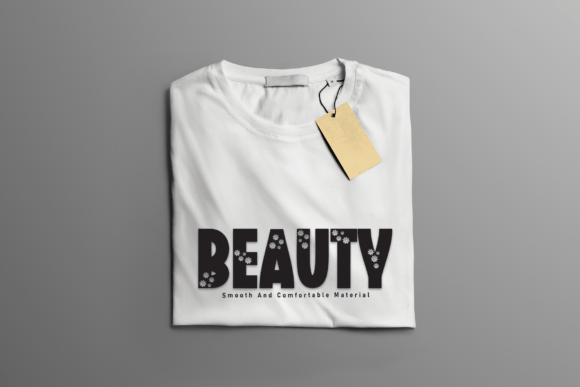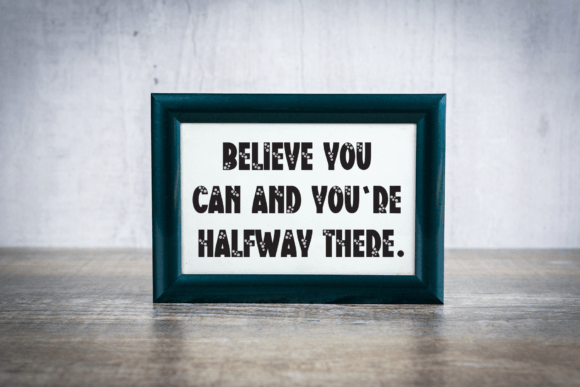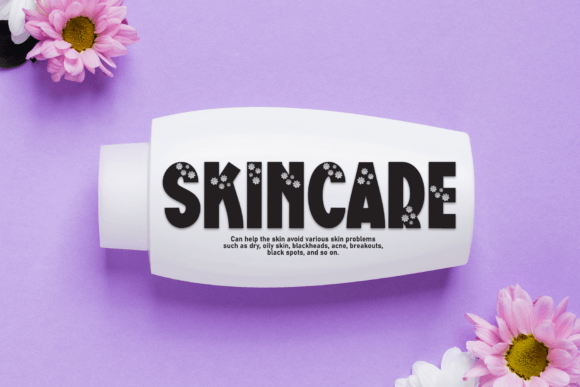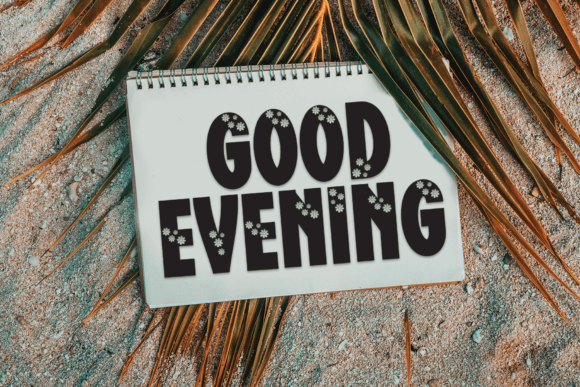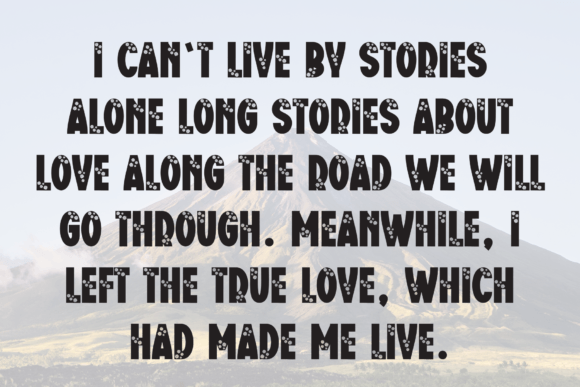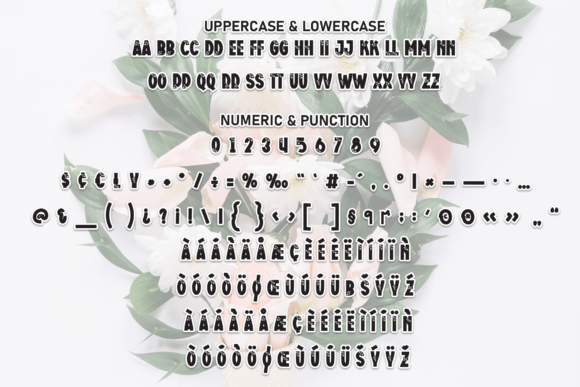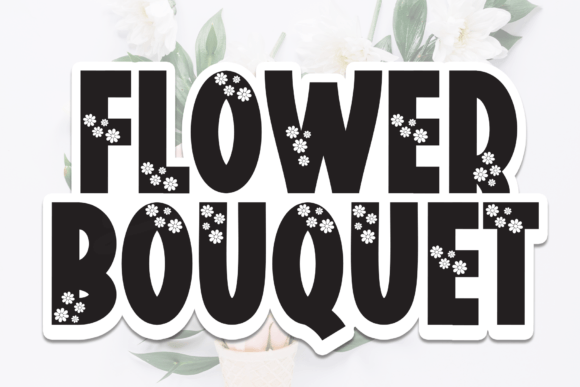
Introducing the Flower Bouquet Font: A Delicate and Charming Addition to Your Designs
Are you a designer or crafter looking for a unique and eye-catching font to add a touch of elegance and whimsy to your projects? Look no further than the Flower Bouquet font! This bold font features delicate little flowers nestled inside each letter, giving your text a charming and decorative touch that’s sure to impress.
What is the Flower Bouquet Font?
The Flower Bouquet font is a one-of-a-kind typeface that combines the classic elegance of a bold font with the playfulness of intricate floral designs. Each letter in the font features a beautiful, delicate flower nestled inside its curves, adding a touch of femininity and sophistication to your text.
Key Features of the Flower Bouquet Font
- Unique and eye-catching design: The Flower Bouquet font features a truly one-of-a-kind design that’s sure to turn heads. The delicate flowers nestled inside each letter add a touch of elegance and whimsy to your text.
- Bold and delicate: The font is bold and sturdy, making it perfect for headlines and titles, while the delicate flowers add a touch of subtlety and nuance.
- Perfect for designers and crafters: Whether you’re a professional designer or a crafter looking for a unique touch, the Flower Bouquet font is perfect for a wide range of projects, from wedding invitations and stationery to logos and branding.
- Easily customizable: The font is easily customizable, allowing you to adjust the size, color, and style to fit your project’s needs.
Uses for the Flower Bouquet Font
The Flower Bouquet font is perfect for a wide range of projects, including:
- Wedding invitations and stationery: Add a touch of elegance and romance to your wedding invitations, save-the-dates, and other stationery with the Flower Bouquet font.
- Logos and branding: Use the Flower Bouquet font to create a unique and eye-catching logo or branding element for your business or product.
- Signs and displays: The font is perfect for signs, displays, and other promotional materials, adding a touch of whimsy and charm to your message.
- Digital and print media: Use the Flower Bouquet font in digital and print media, including social media graphics, flyers, brochures, and more.
Tips for Using the Flower Bouquet Font
Here are a few tips for getting the most out of the Flower Bouquet font:
- Use it sparingly: The Flower Bouquet font is bold and eye-catching, so use it sparingly to avoid overwhelming your design.
- Pair it with a simple font: Pair the Flower Bouquet font with a simple, clean font to create a striking contrast and add visual interest to your design.
- Experiment with colors: The Flower Bouquet font looks beautiful in a range of colors, so experiment with different hues and combinations to find the perfect look for your project.
The Flower Bouquet font is a unique and eye-catching addition to any design or crafting project. With its delicate flowers and bold, elegant design, it’s perfect for a wide range of applications, from wedding invitations and stationery to logos and branding. Whether you’re a professional designer or a crafter looking for a special touch, the Flower Bouquet font is sure to impress.